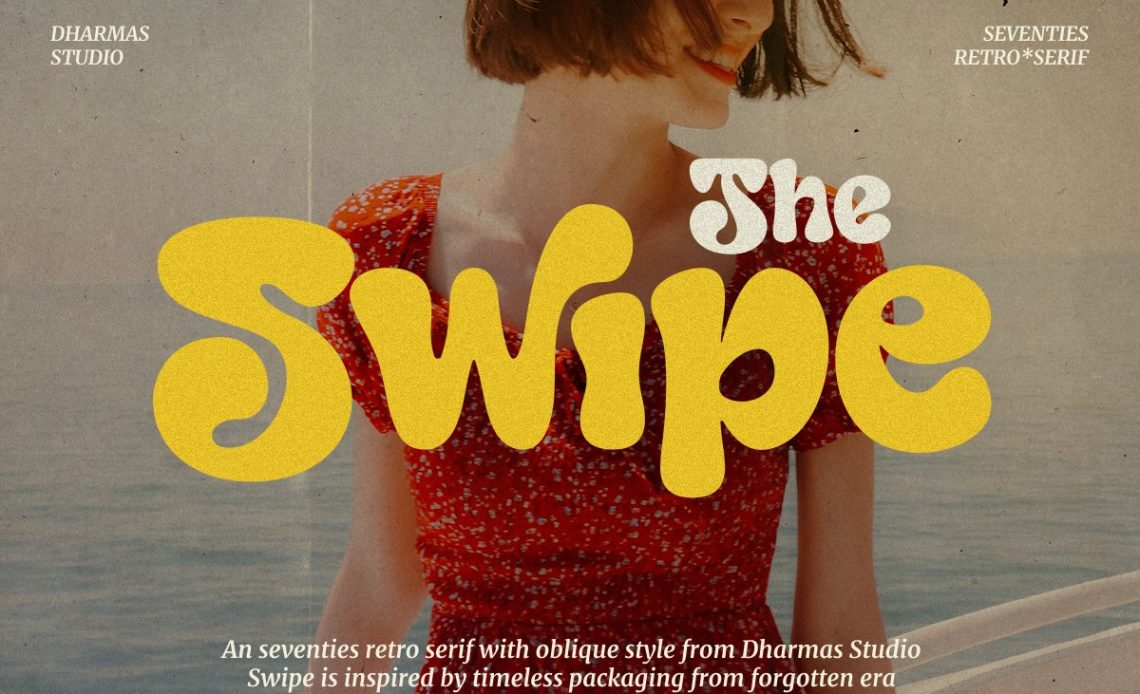
Looking for the perfect font for your next project? Look no further than Swipe, the best font for a poster! Created by the talented Dharma Sahestya, Swipe is a retro bold font that will take your design to the next level.
With its smooth curves and soft bold, Swipe has a fun and nostalgic feel that is perfect for a wide range of uses. This versatile font comes with 105 beautiful alternates and ligatures, as well as four stylistic sets, making it perfect for headings, logotypes, quotes, apparel design, posters, flyers, packaging, book covers, and much more.
Swipe comes in both regular and italic styles, and is available in TTF, OTF, and WOFF versions, so you can use it in many programs, including Canva. Plus, with multilingual support for over 20 languages, Swipe is perfect for designers and creatives from around the world.